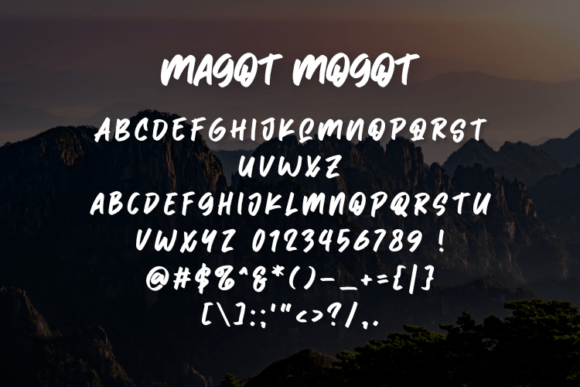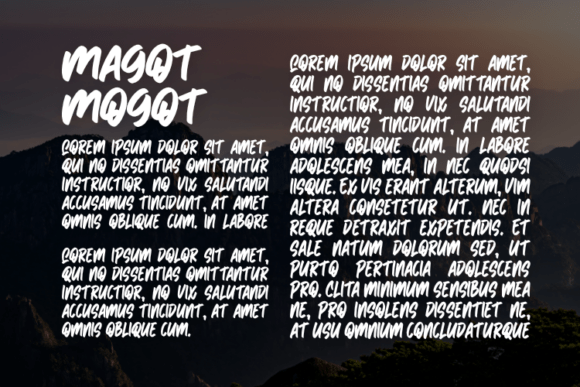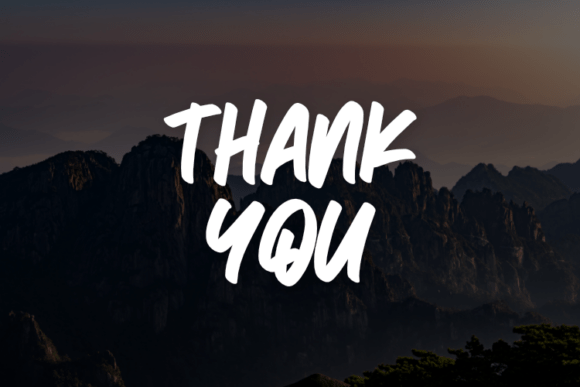
Introduction to Magot Mogot Font
Have you ever stared at a blank design canvas, eager to bring a new idea to life? The thrill of creativity is what drives us, and the right tools can make all the difference. As designers, we’re constantly on the lookout for high-quality resources that help us express ourselves and tell unique stories through our work. That’s where Magot Mogot Font comes in – a game-changing design resource that’s about to revolutionize the way you approach your creative projects.
With Magot Mogot Font, you’ll have the freedom to experiment with bold typography and transparent backgrounds, giving your designs a professional edge. Whether you’re designing t-shirts, stickers, or other merchandise, this versatile font is sure to elevate your work. And the best part? It’s easily compatible with all your favorite design software, making it a seamless addition to your workflow.
Key Features of Magot Mogot Font
- High-quality design resource suitable for creative projects, offering a unique and stylish aesthetic.
- Features a transparent background, making it easy to layer and customize in design projects.
- Supports various font sizes and resolutions, from small to large formats, making it versatile for various design applications.
- Designed to be highly legible and visually appealing, making it an ideal choice for creative projects that require a unique touch.
Honest Review: Magot Mogot Font
As a designer, I’m always on the lookout for high-quality design resources to enhance my creative projects. Recently, I stumbled upon the Magot Mogot Font, and I’m excited to share my honest review with you.
The Magot Mogot Font is a unique and quirky design resource that’s perfect for adding a touch of whimsy to your projects. One of the standout features is its transparent background, which makes it easy to customize and integrate with your design.
- ✨ Unique and playful style that’s perfect for creative projects
- ✨ High-quality design that looks great on both digital and print materials
- ✨ Transparent background makes it easy to customize and integrate with your design
- ⚠️ Limited font sizes and styles available for download
- ⚠️ May not be suitable for formal or professional projects due to its playful style
Overall, I’m impressed with the Magot Mogot Font, and I think it’s a great addition to any designer’s toolkit. With a little creativity, you can use it to add some personality to your design projects.
How to Use Magot Mogot Font
The Magot Mogot Font is a high-quality design resource that offers a transparent background, making it perfect for creative projects. To get the most out of this font, follow these steps.
The Magot Mogot Font is suitable for various creative projects, including:
Alternatives to Magot Mogot Font
The Great Vibes Font is a high-quality, elegant script font that can be used for various design projects, including invitations, wedding stationery, and creative brochures. It features a transparent background, making it ideal for layering or combining with other design elements.
When to use: Great Vibes Font is perfect for romantic, elegant, or vintage-themed design projects. It’s a great alternative to Magot Mogot Font for designers looking for a more sophisticated and refined script font.
Comparison: Great Vibes Font has a more elegant and refined feel compared to Magot Mogot Font, which has a more playful and casual tone.
The Aleo Font is a modern sans-serif font that’s perfect for creative projects, including branding, packaging, and editorial design. It features a clean and minimalistic design, making it ideal for designers who want a high-quality, transparent background font.